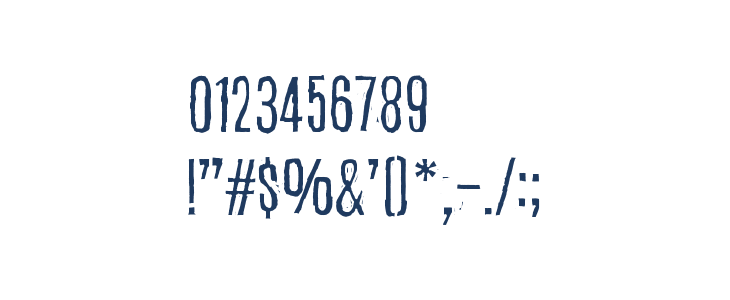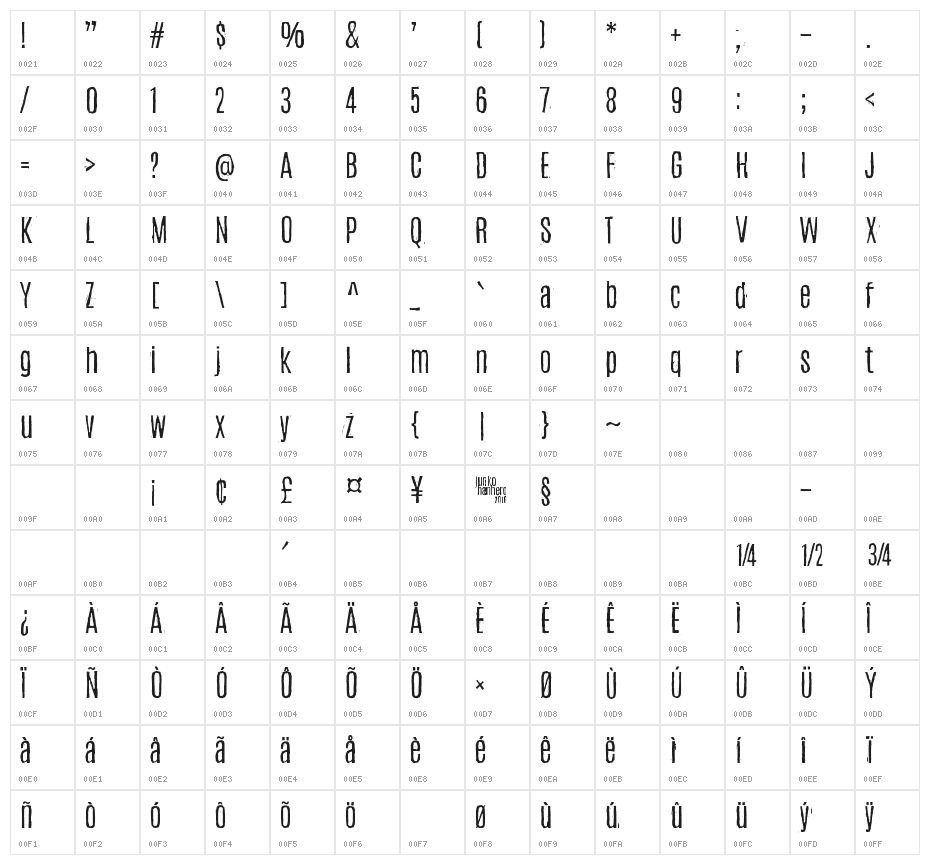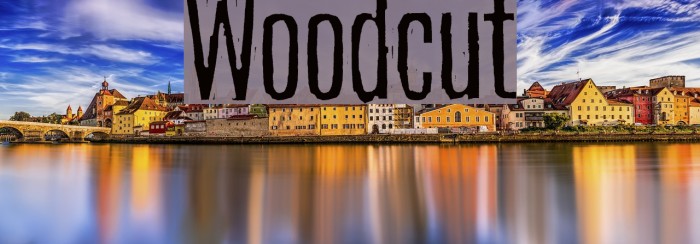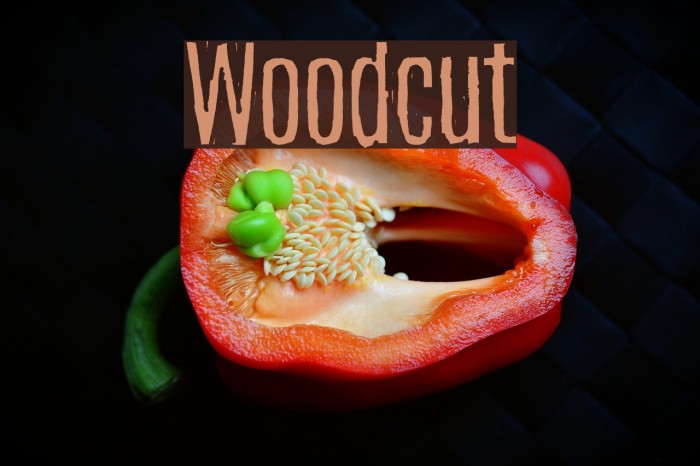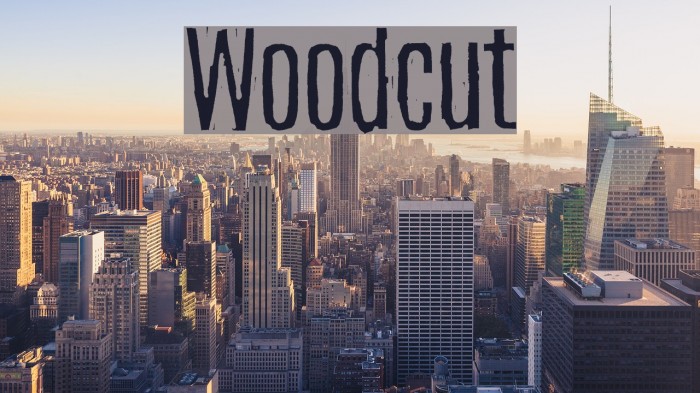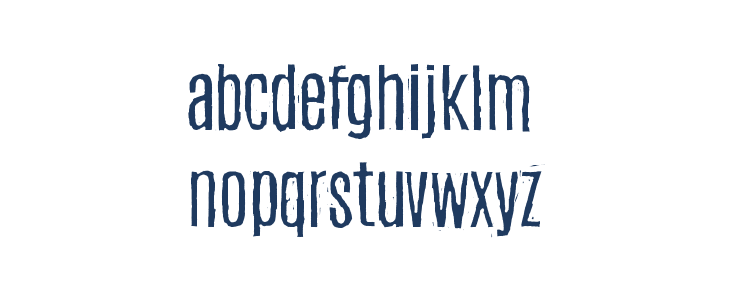
Woodcut Font
Woodcut Description
This font features a rugged, handcrafted appearance reminiscent of traditional woodcut prints. The characters are tall and narrow, with uneven edges that give a rustic and organic feel. The uppercase and lowercase letters maintain a consistent style, with slight variations that enhance the handcrafted look. Numbers and special characters follow the same aesthetic, ensuring a cohesive design. The font's texture and irregularities make it ideal for projects that require a vintage or artisanal touch.
| Proposed Projects | Ideal for vintage posters, artisanal product packaging, and rustic-themed branding. |